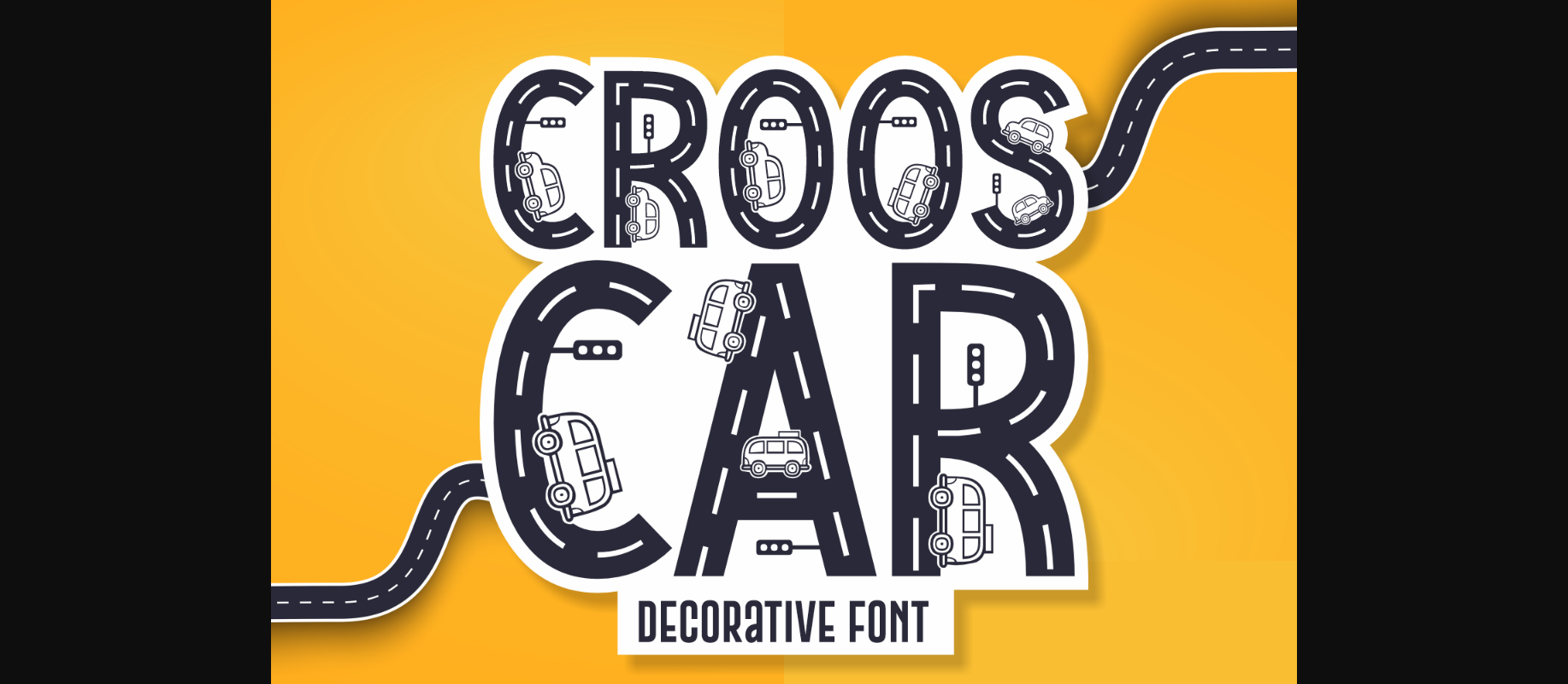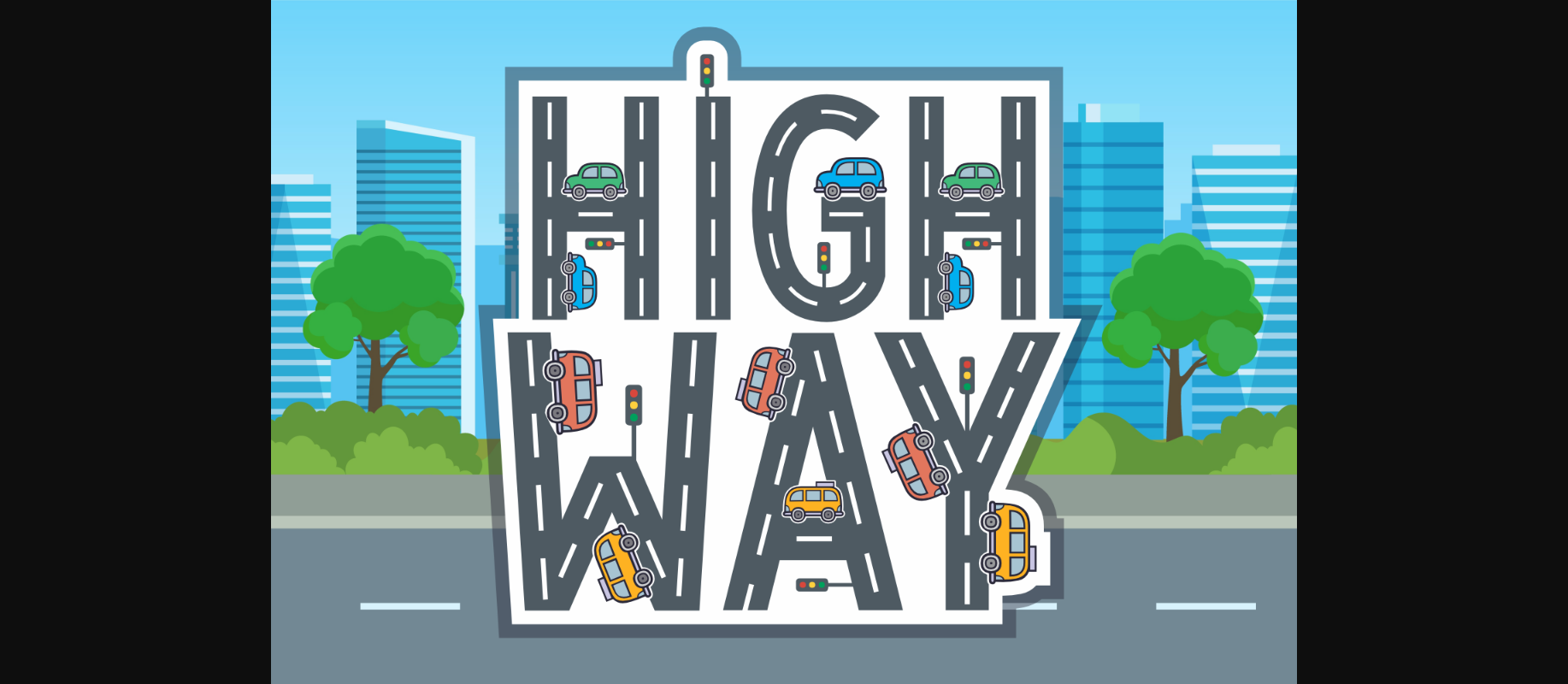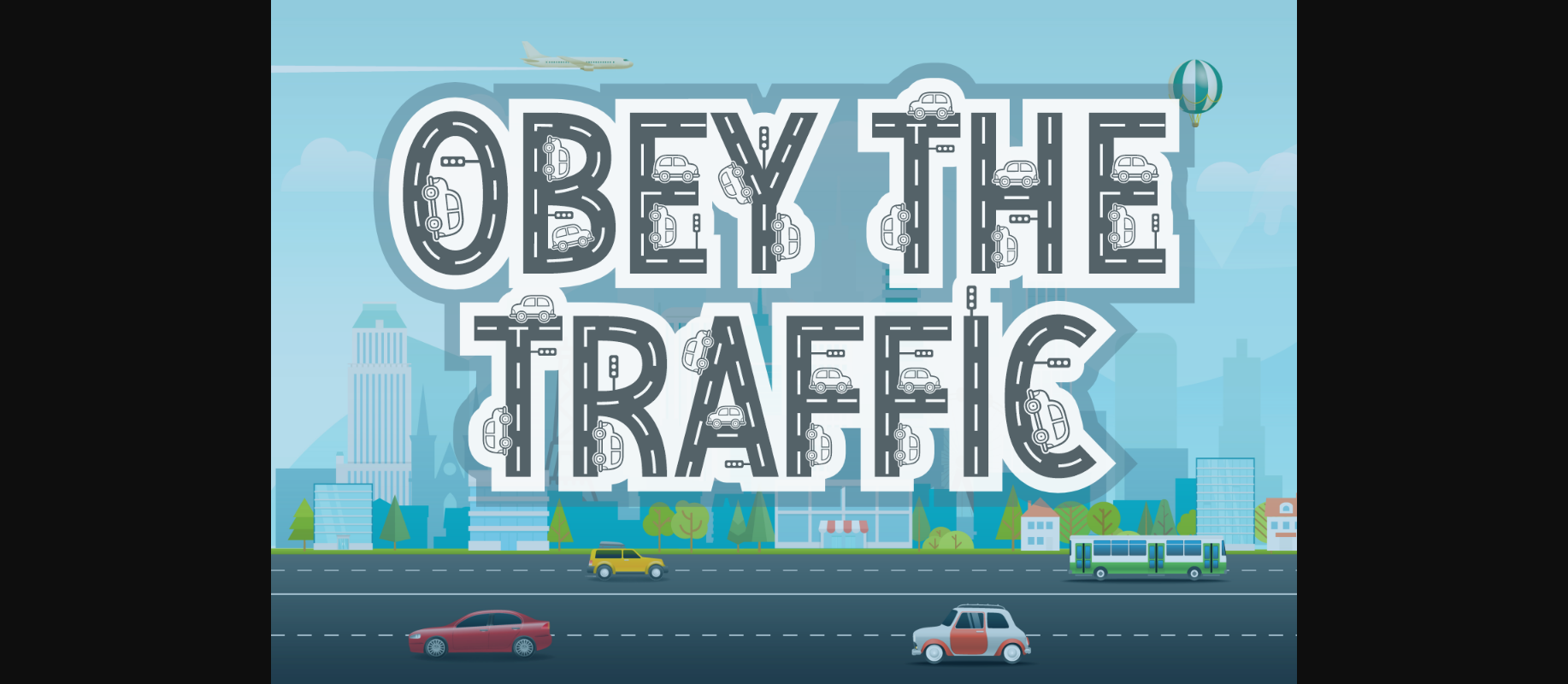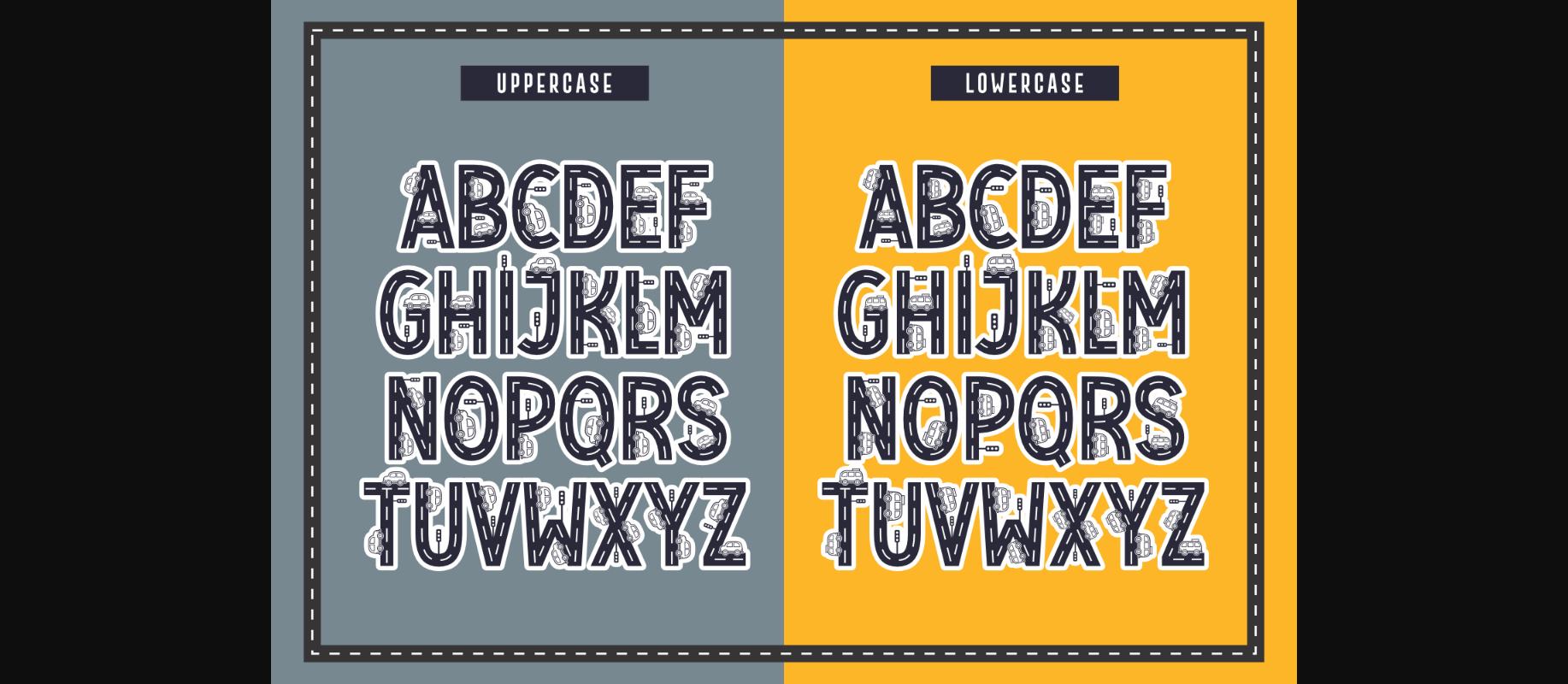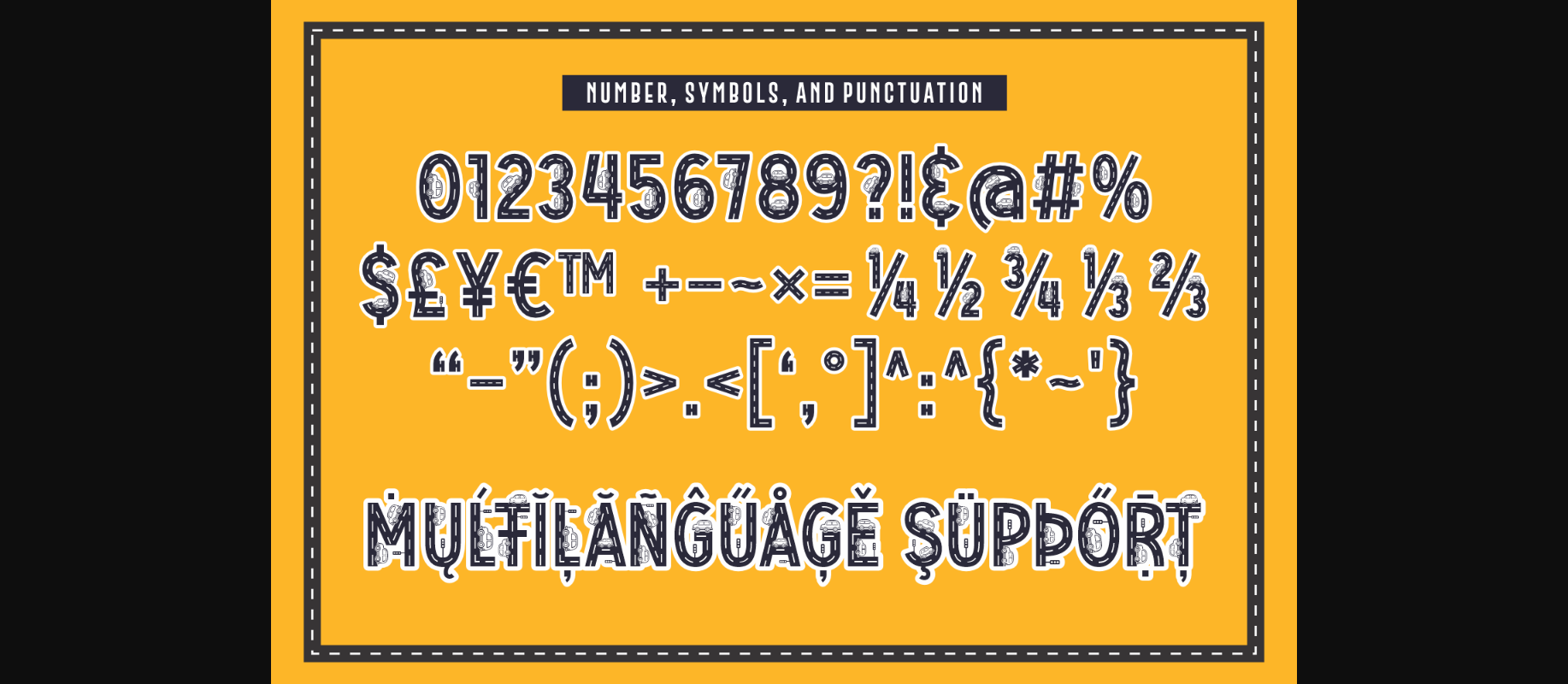
Croos Car Font
About Croos Car Font
Croos Car is a perfect decorative font for all automobile lovers out there! This creative font features moving cars inside all characters set. Combined with bright colors, this exciting decorative font is perfect for posters, children-themed designs, car-related designs, quotes, books, movies, birthday cards, wall art, frames, art prints, and more.